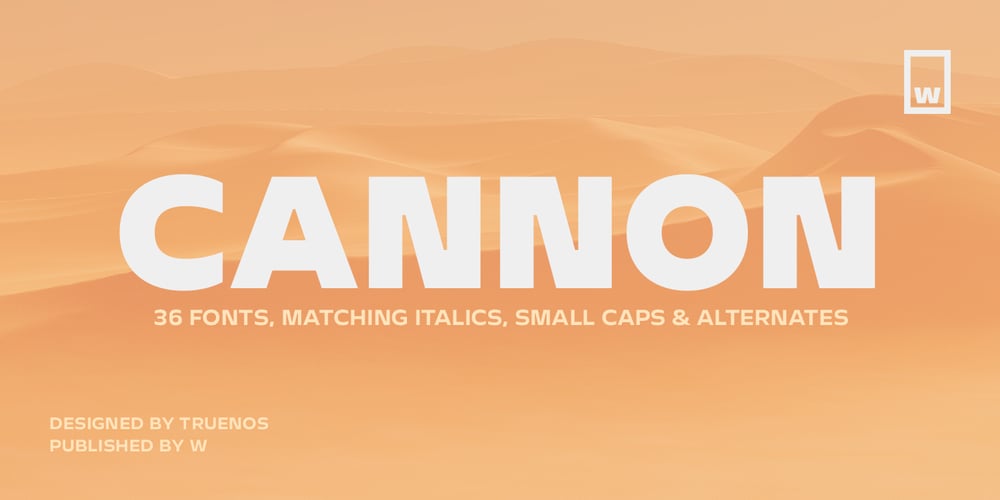
Cannon Font Family was designed by Patricio Truenos and published by W Type Foundry. Cannon contains 36 styles and family package options. The Cannon family is the result of combining the clean aesthetics from a classic sans neo-grotesque with a touch of a geometric design. The result is a simple but dynamic typeface with retro and technological airs. Cannon is ideal for robust advertising, bold brand identities and packaging, also suitable for high impact headlines and short texts. This type family consists of 36 variants and 9 weights (thin, extra light, light, regular, book, medium, bold, extra bold, black), matching italics for all weights and widths, matching small caps for all weights and widths, alternate characters and extended language support. We are proud to introduce: Cannon.